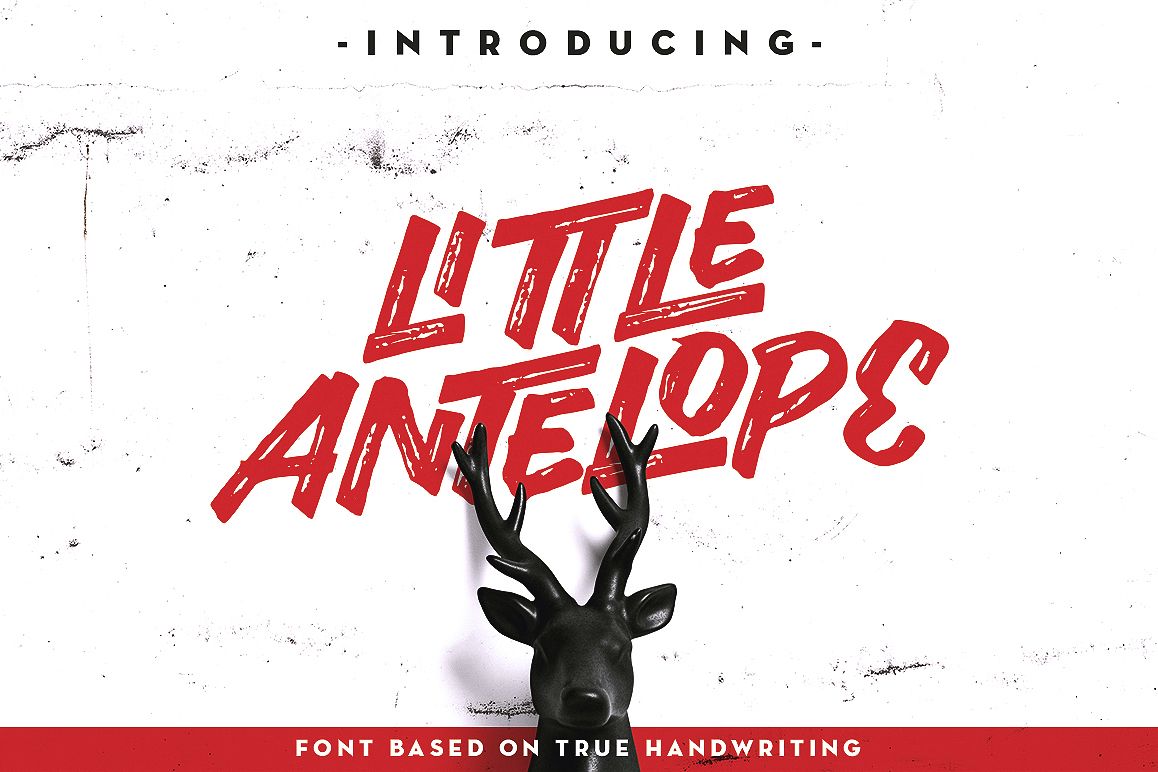
Little Antelope Font
Introducing Little Antelope It is based on true handwriting by me and every character in this font made by almost-empty brush to give sexy texture looks. Little Antelope is an Opentype font and suitable for any Graphic Designs such as T-shirt and Poster Design, Branding materials, Logo and all Stationery packages, and for Photography with some texts or quotes inside it. What's Included : - Uppercase & Smallcaps Character - Opentype Features: Standard Ligatures & Stylistic Character - Numerals, Punctuations & Symbols - 300+ characters FAQ: For all the characters are also available, accessible in the Adobe Illustrator Glyphs Panel, or in Adobe Photoshop Character Open Type Panel. *Please don't hesitate to drop me a message or leave your comment below if you have any issues or queries. Otherwise, Thank you for your purchase! and thanks for looking and happy designing with my Little Antelope Font!